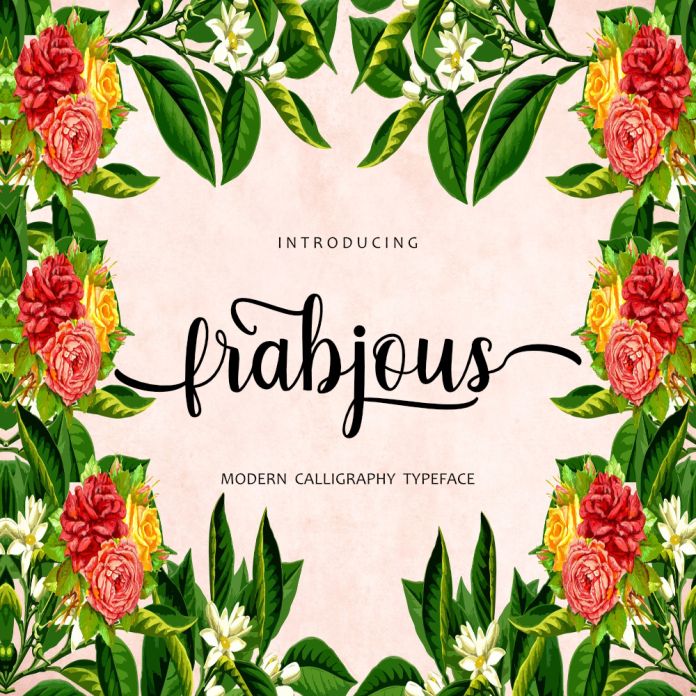
Frabjous is a ravishing handwritten font. This versatile script font has a wide spectrum of applications ranging from greeting cards to headlines and is guaranteed to add a dazzling feel to your next project.
This font is PUA encoded which means you can access all of the beautiful glyphs and swashes with ease!